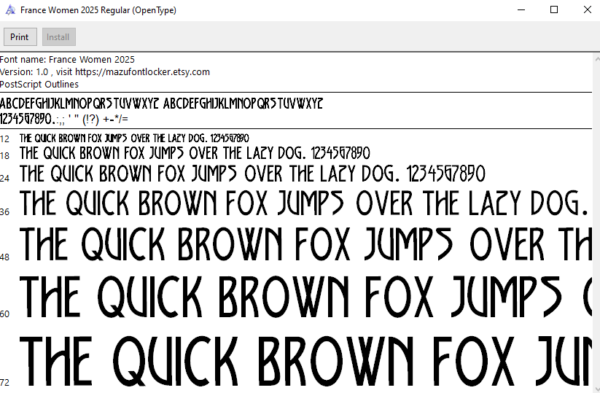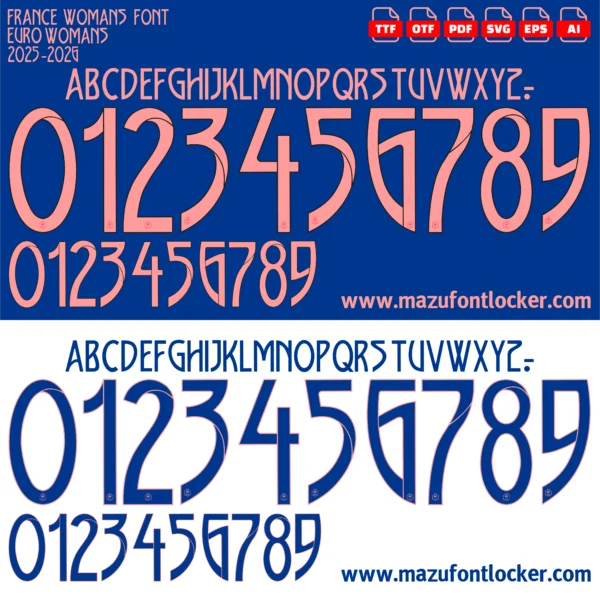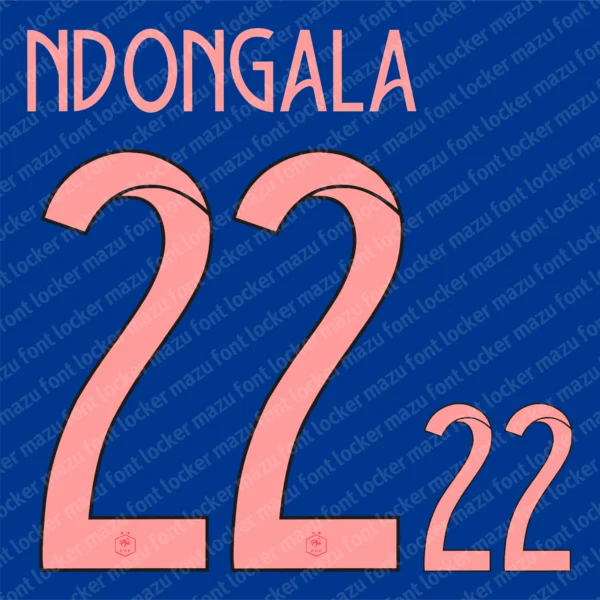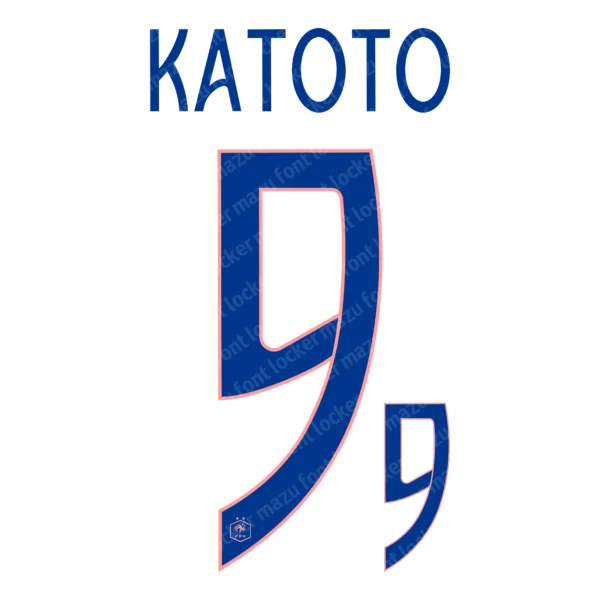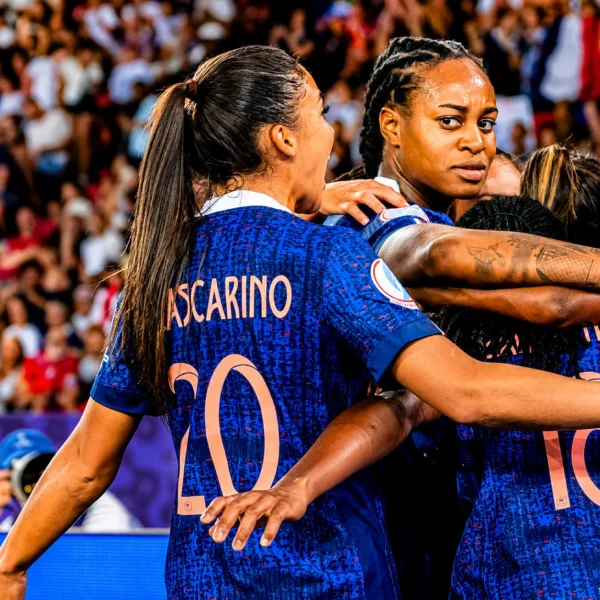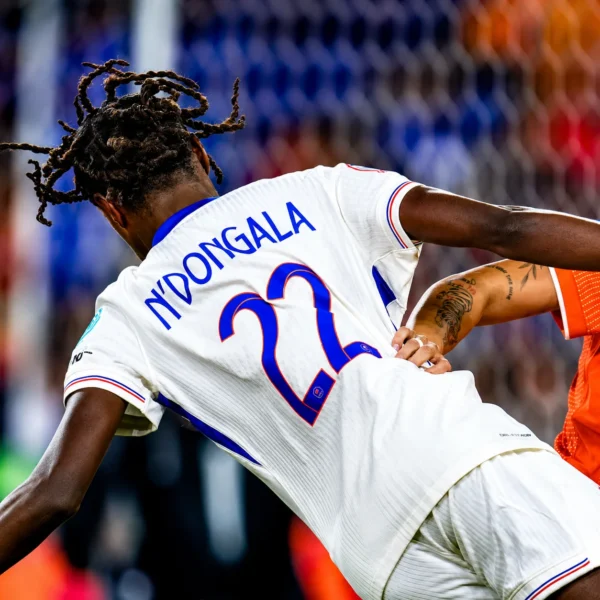
France Womens Euro 2025 Font Vector – Epic Les Bleues Masterpiece
This font captures the bold, fearless, elegant, and ultra-premium lettering that perfectly reflects the French national team’s legendary heritage combined with the fierce, unstoppable spirit of Les Bleues — delivering unmatched elegance, intense passion, elite craftsmanship, and pure French fire for premium jersey mockups, epic football designs, spectacular sports visuals, standout fan creations, and professional branding projects.
France Womens Euro 2025 Font Vector – Authentic Les Bleues Typeface
The France Womens Euro 2025 Font Vector is a premium typeface that accurately recreates the official match lettering worn by the France Women’s National Team during the UEFA Women’s Euro 2025. This high-quality vector font kit captures the bold, elegant, and dynamic typography that represents the pride, excellence, and fighting spirit of Les Bleues.
Designed for professional designers and passionate France supporters, the France Womens Euro 2025 Font Vector delivers perfect authenticity for creating realistic jersey mockups, fan merchandise, matchday posters, social media graphics, and women’s football content. It pairs beautifully with the iconic blue, white, and red France kit, one of the most recognizable national team identities in Europe.
Why Choose France Womens Euro 2025 Font Vector
This font stands out because of its sharp vector precision and strong national team identity. Every letter and number is crafted to match the exact style used on the players’ shirts during France’s 2025 Women’s Euro campaign. Whether you are creating realistic kit templates or exciting Les Bleues-themed content, the France Womens Euro 2025 Font Vector gives your designs that authentic Stade de France atmosphere.
The letterforms in the France Womens Euro 2025 Font Vector are bold, modern, and highly readable. The strokes feature elegant geometric construction combined with athletic styling, creating a professional appearance that stands out on jerseys while preserving France’s rich football heritage.
The numerals feature strong curves and clean edges, delivering a confident and premium appearance. This vector design ensures flawless scalability and excellent legibility across both print and digital applications.
• Full uppercase A–Z and numbers 0–9 in authentic France Womens Euro 2025 style
• Multilingual Latin character support including French accents and special characters
• Create highly realistic France Womens Euro 2025 jersey mockups with accurate lettering
• Produce custom Les Bleues merchandise with the official 2025 Euro aesthetic
• Includes the exact crest glyph placement used beneath player numbers
France Womens Euro 2025 Campaign
The UEFA Women’s Euro 2025 marked another prestigious chapter for the France Women’s National Team. Les Bleues competed with their trademark technical brilliance, attacking flair, and defensive solidity as one of the top favorites in Europe. Playing in front of passionate home and traveling supporters, the team showcased the continued growth and ambition of French women’s football.